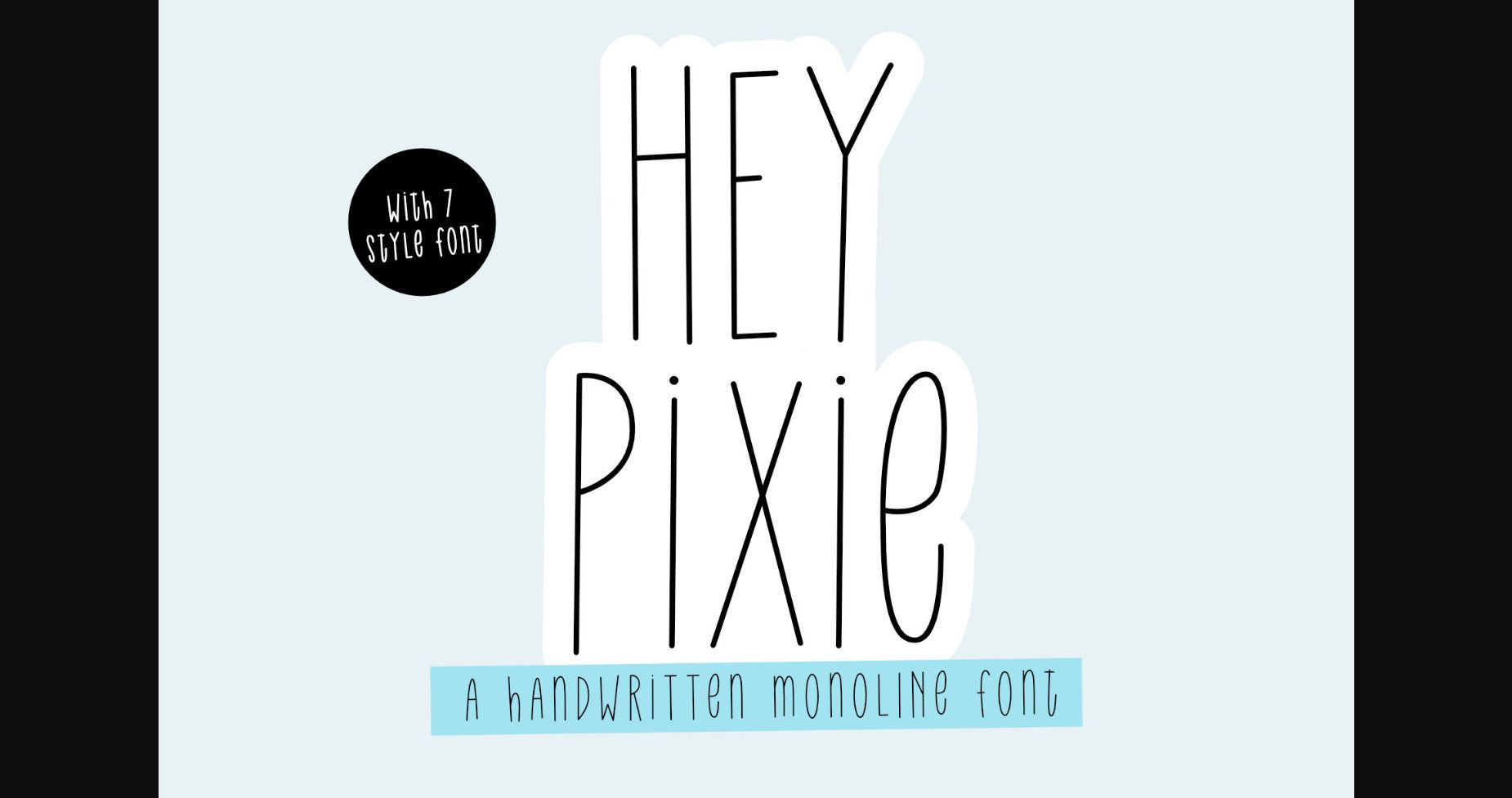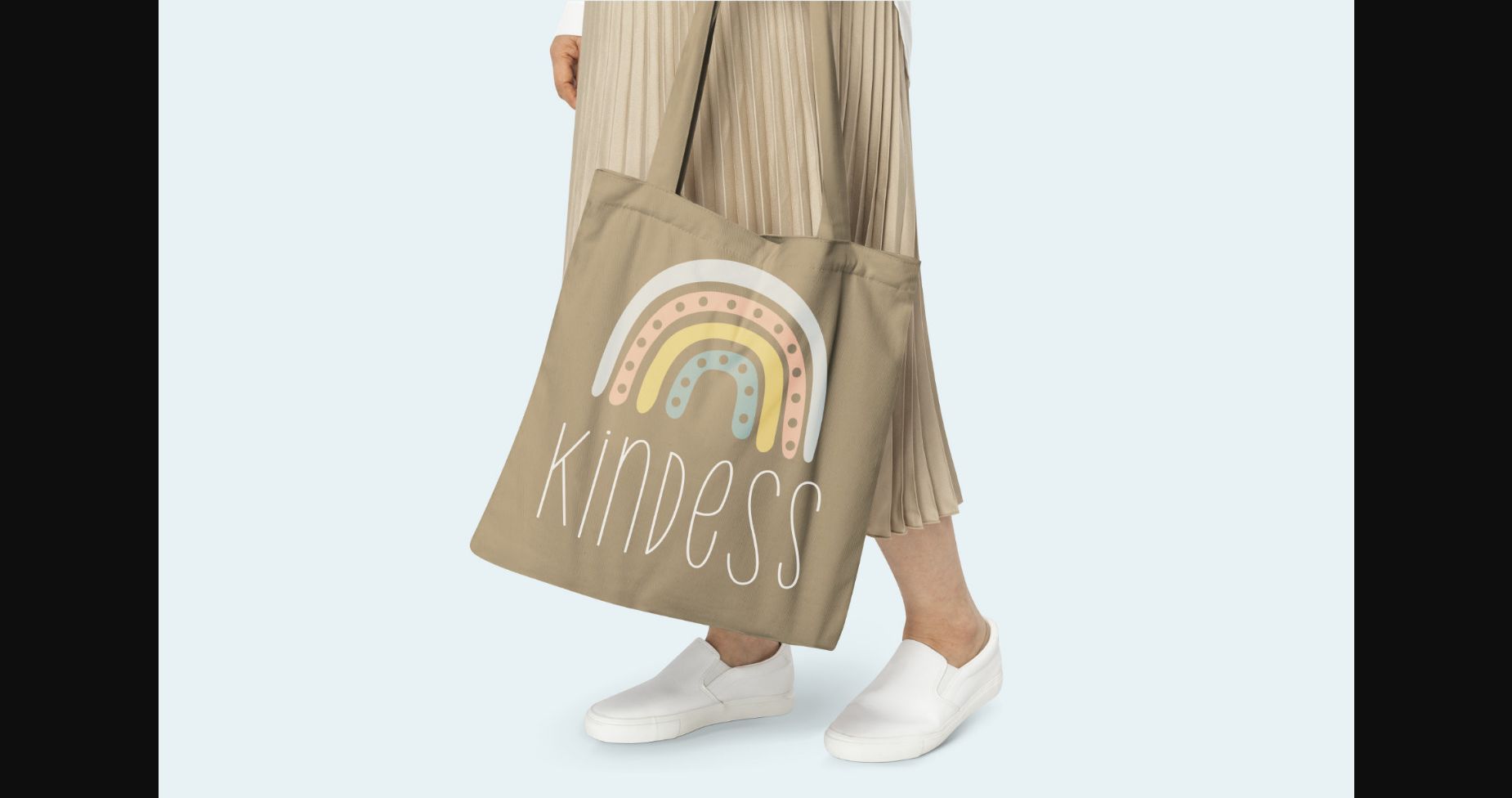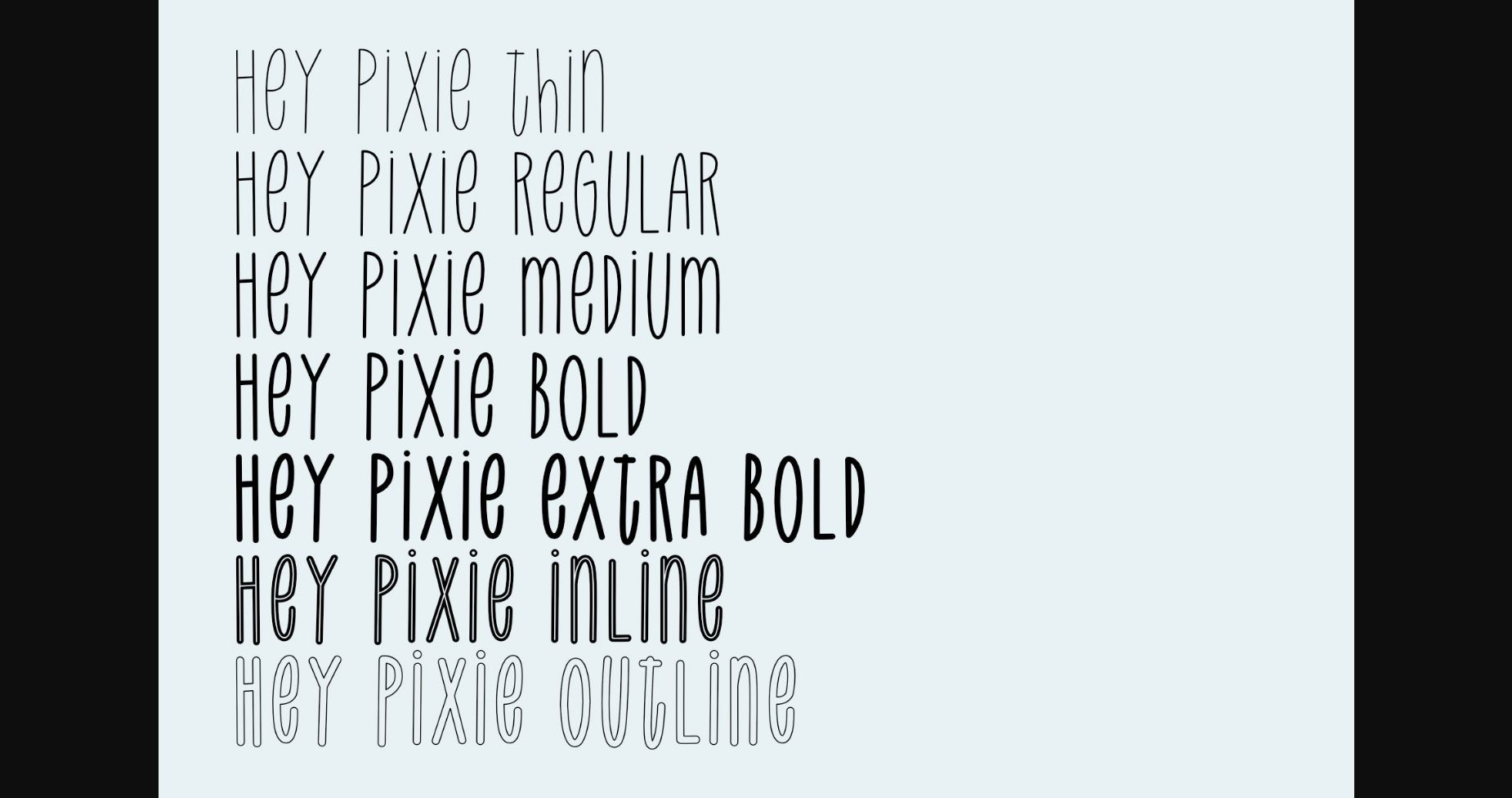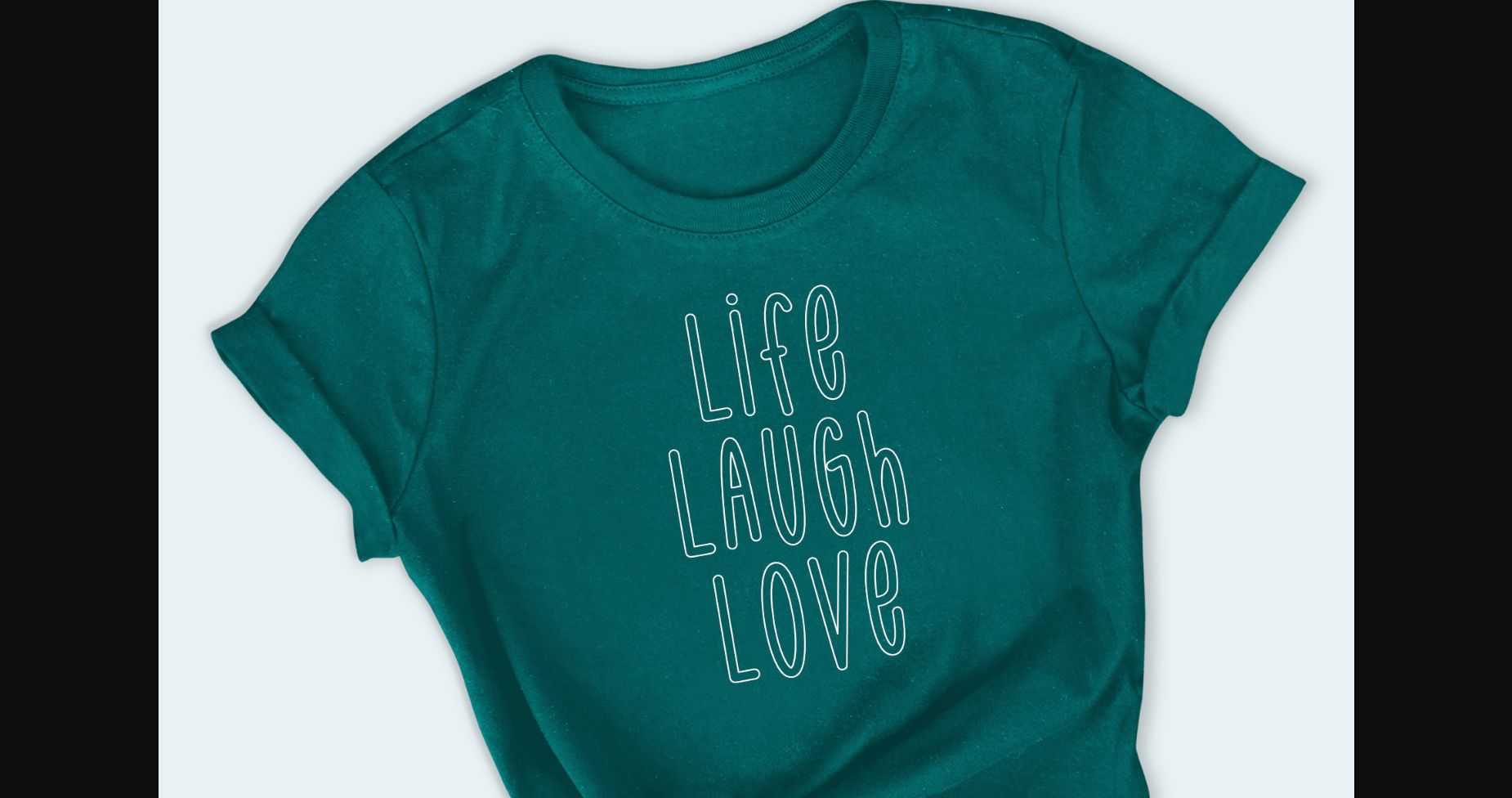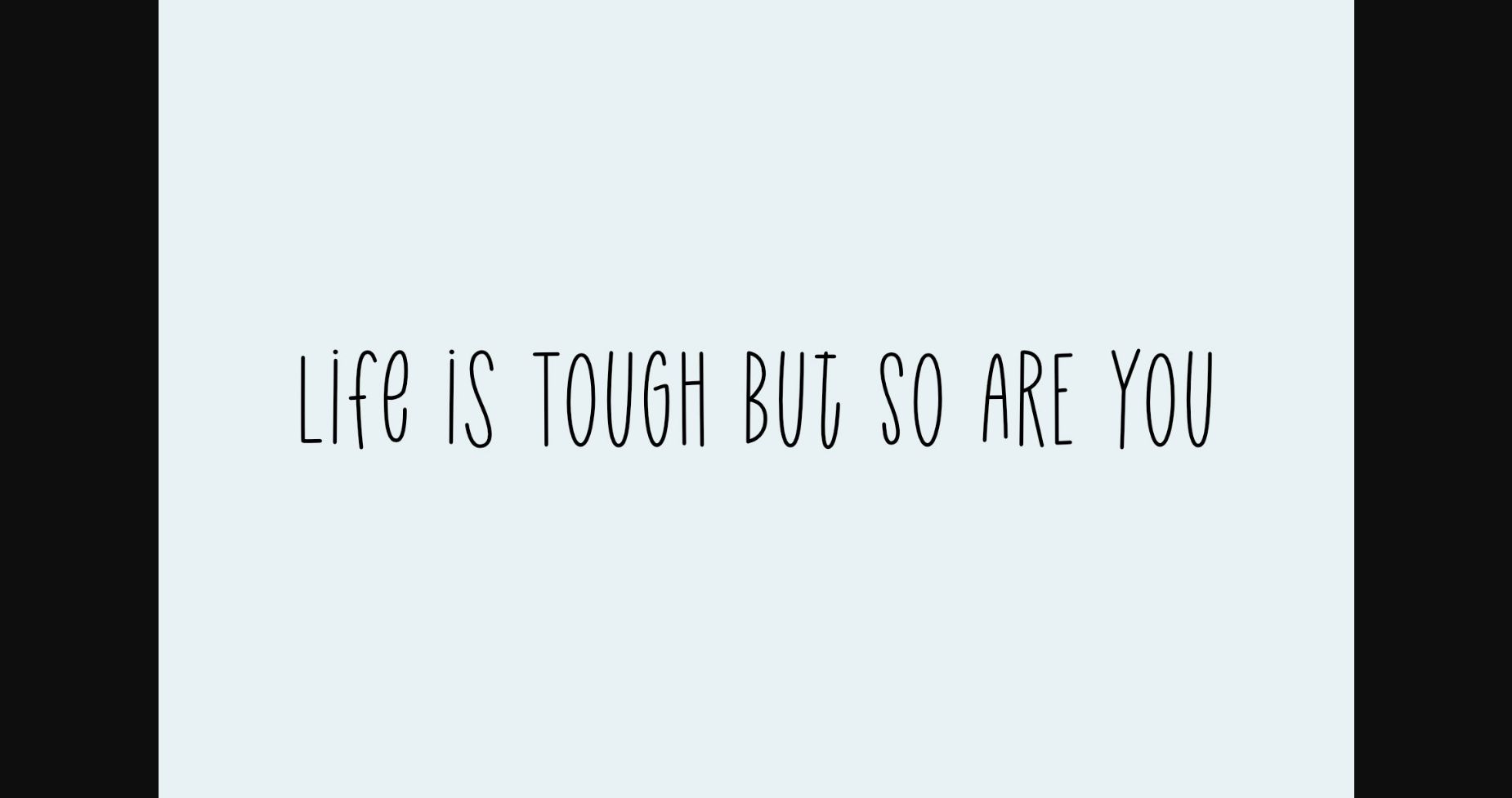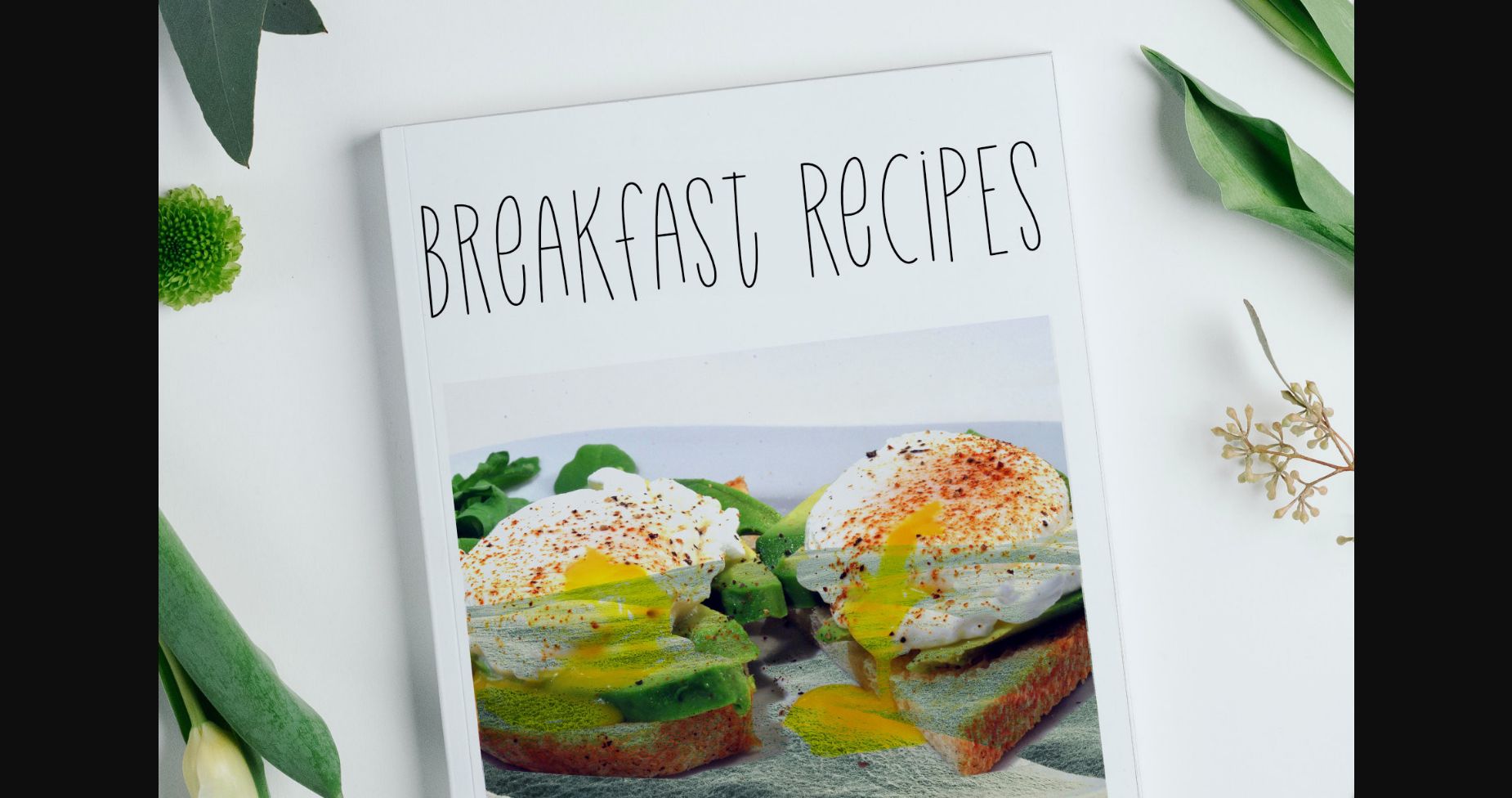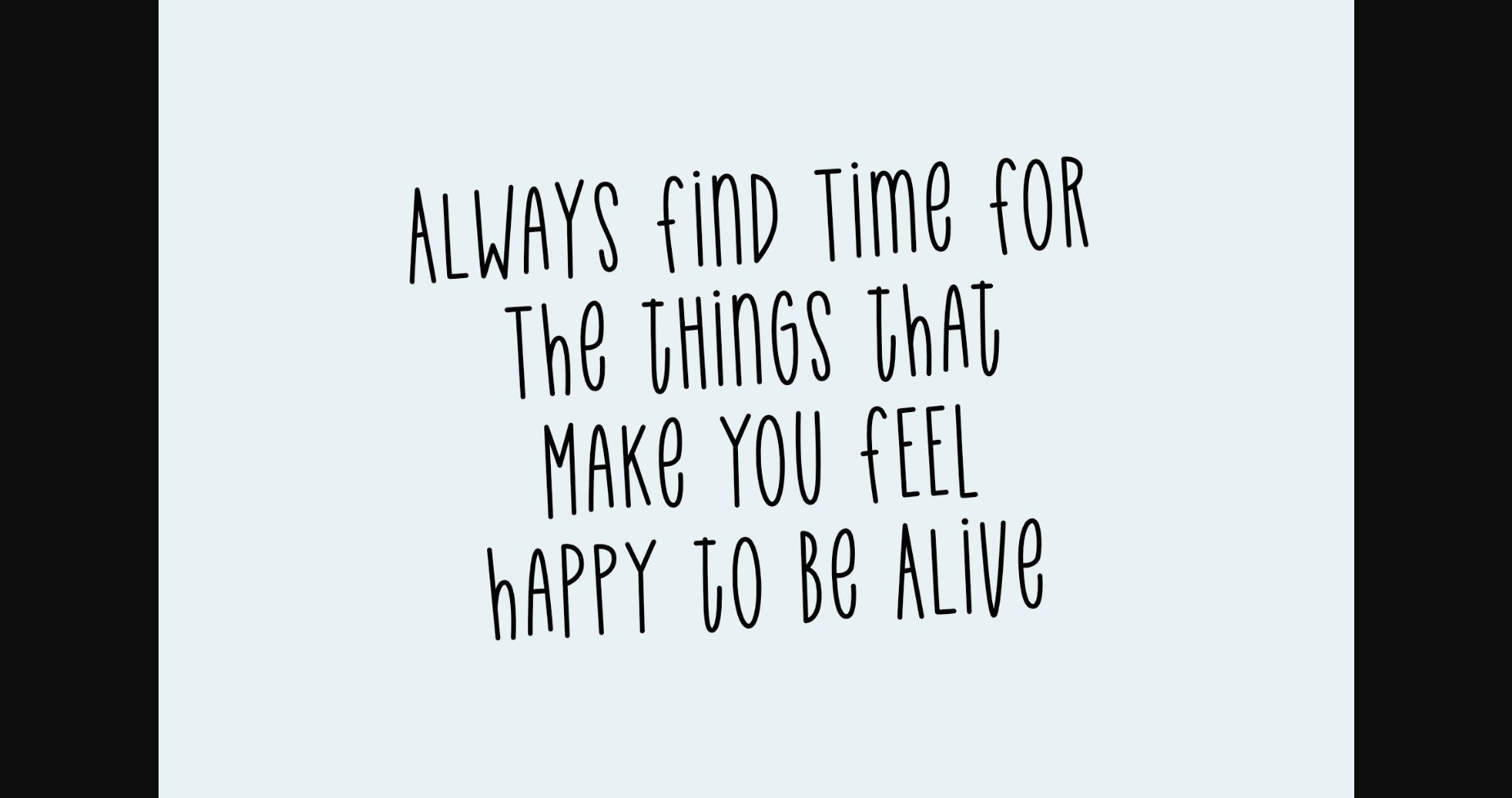
Hey Pixie Font
About Hey Pixie Font
Hey Pixie is a cute and thin lettered sans serif font. Whatever the topic, this font will be a wonderful asset to your font library, as it has the potential to enhance any creation.